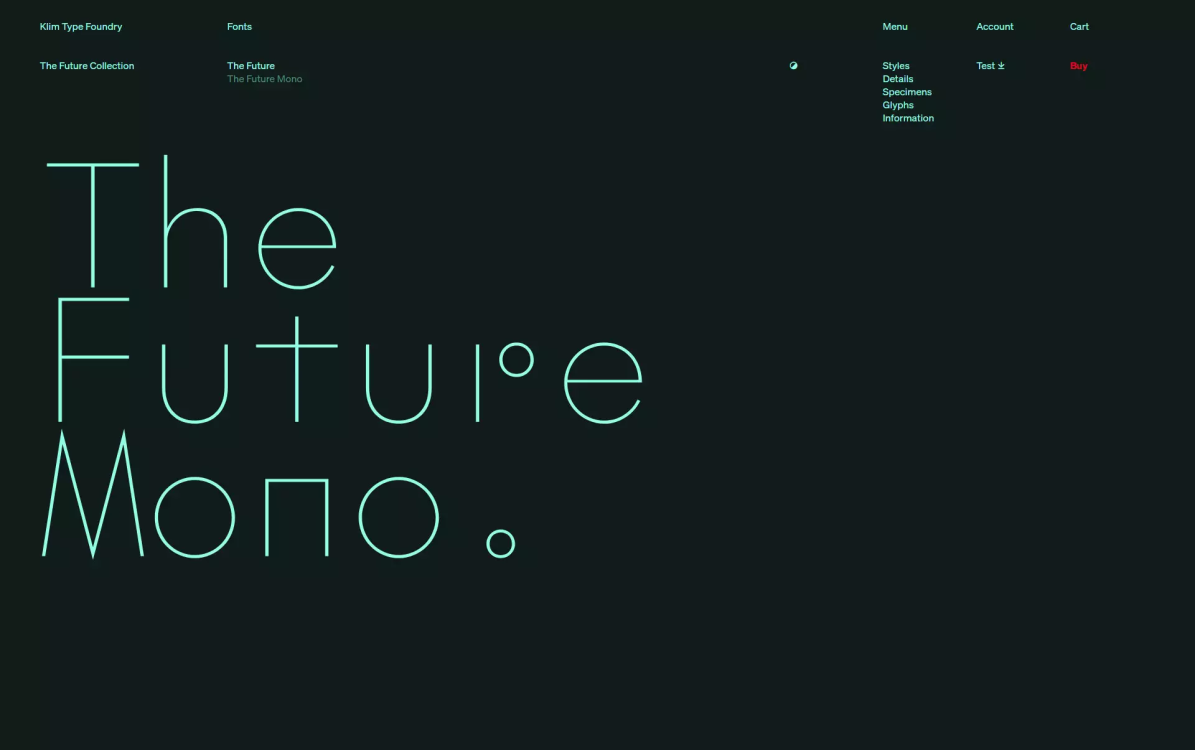
The Future Mono Font Family
The Future is a homage to Futura, Paul Renner’s progressive classic. Working from original production drawings, The Future is a careful observation of Futura’s geometric architecture and avant-garde alternates, articulating Renner’s musings on modernity, abstraction and purity. The Future Mono takes a speculative approach and reimagines Futura as a typewriter font commissioned by Kyota Sugimoto.
The Future Mono Font Family is a Sans Serif Fonts font that brings a professional and versatile look to your projects. The Future is a homage to Futura, Paul Renner’s progressive classic.